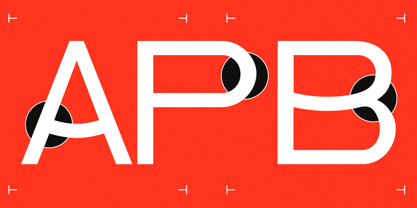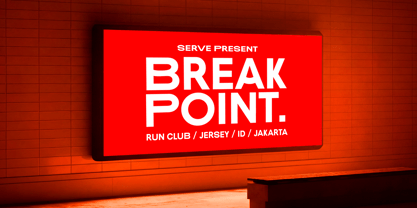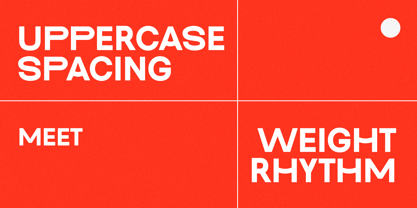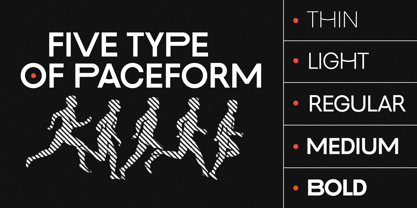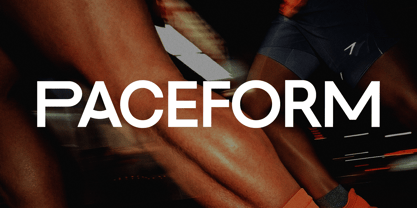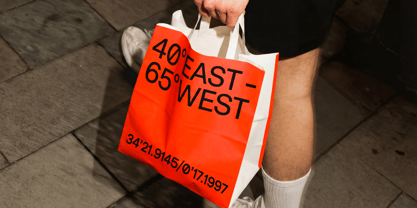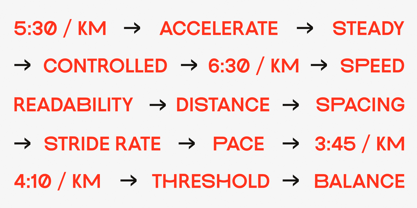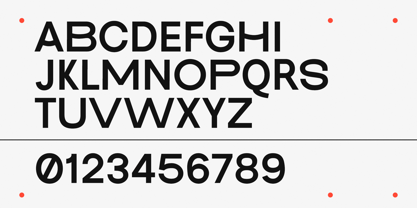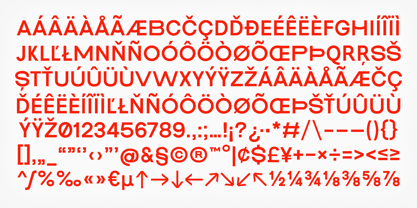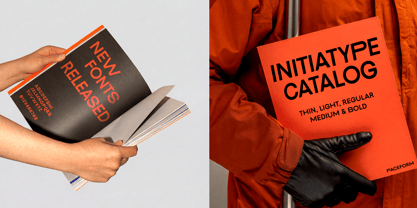
Pace Form
by Initiatype
The Pace Form Font Family was designed by Ferry Acviansyah and published by Initiatype. Pace Form contains 5 styles and family package options. More about this family
PACEFORM is a bold, uppercase-only sans-serif typeface built around rhythm, structure and controlled movement. Inspired by running pace and urban metric systems, it translates measured speed into a clear and confident typographic form. PACEFORM is intentionally designed without lowercase characters. It is a strict uppercase system that focuses on spacing precision and balanced weight progression. PACEFORM delivers strong readability and consistent rhythm across headlines, branding, signage and digital applications.